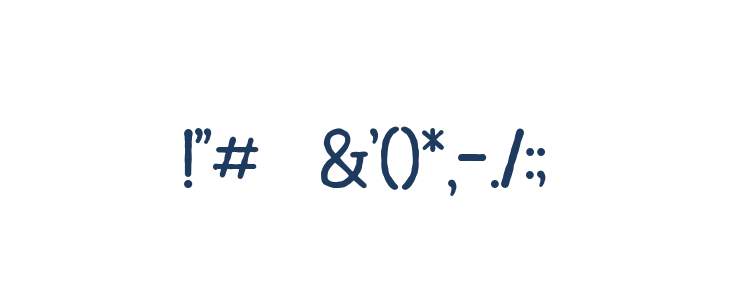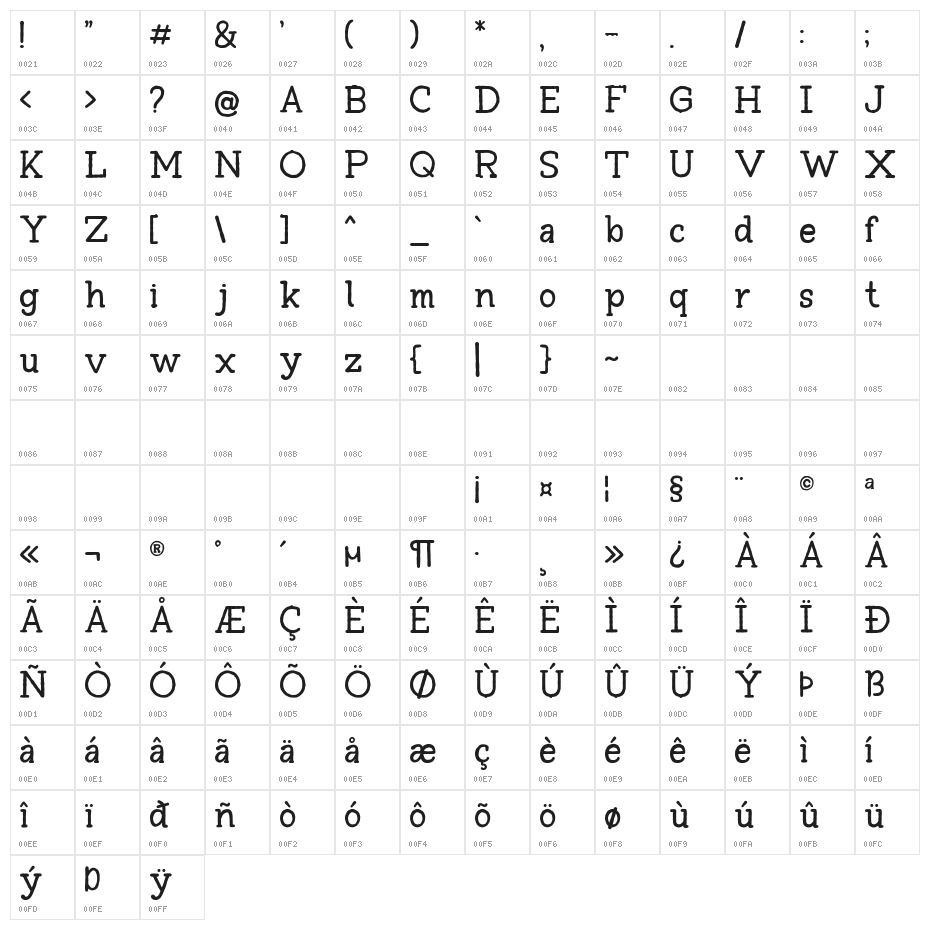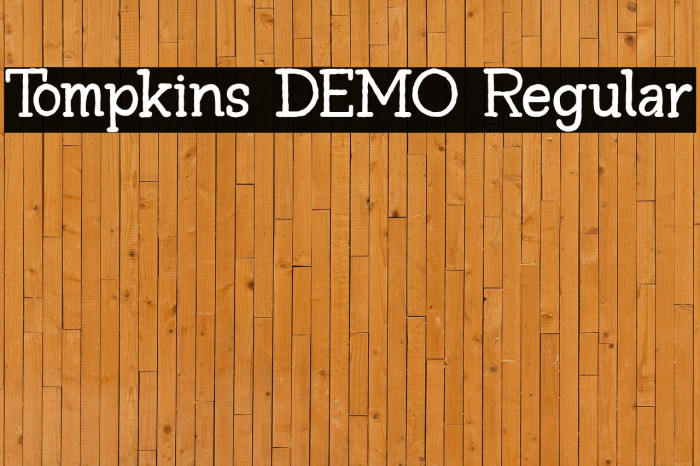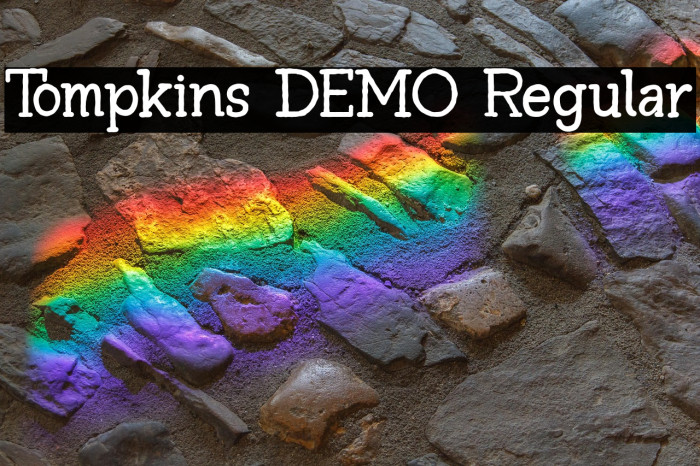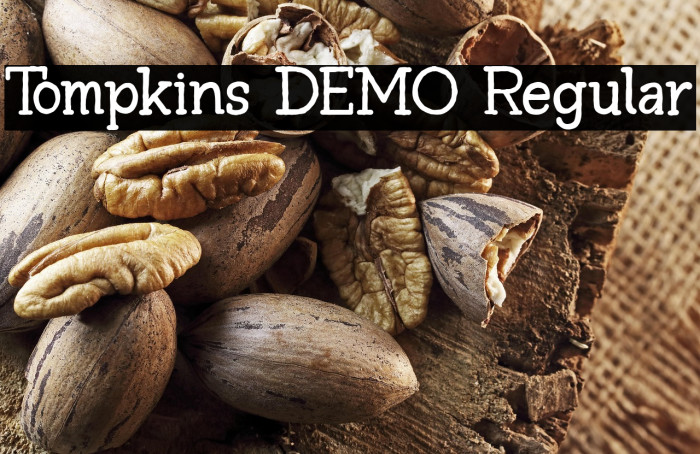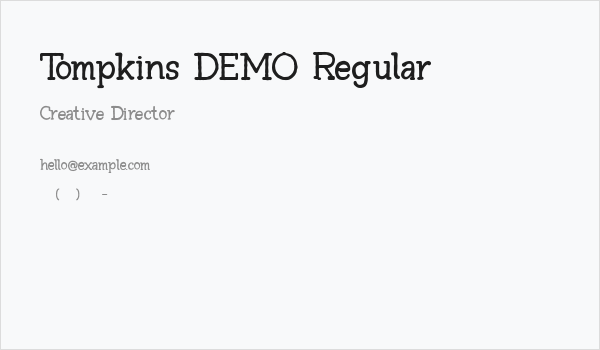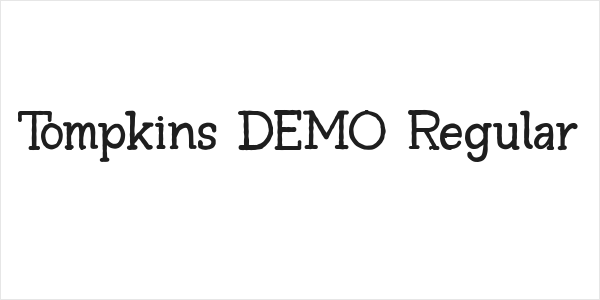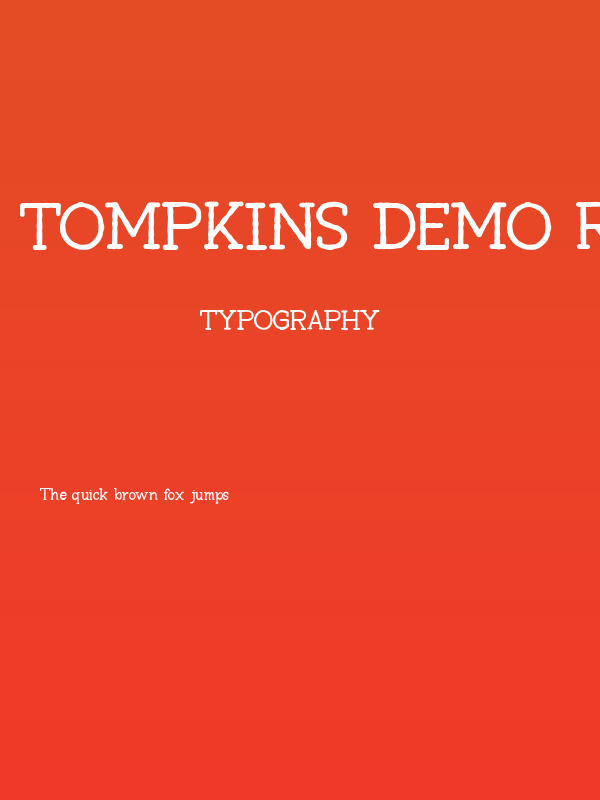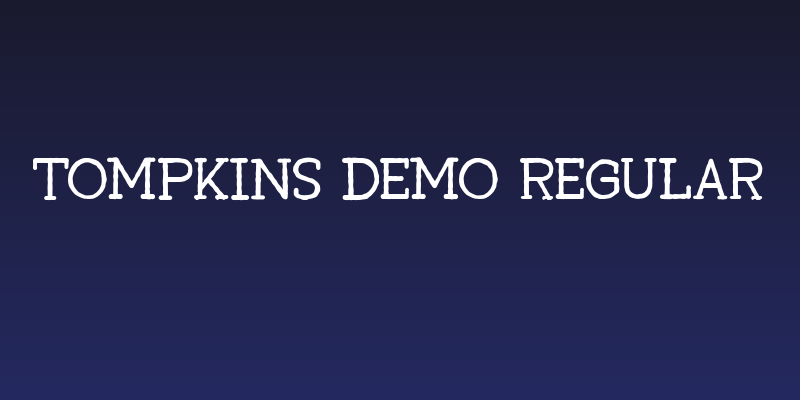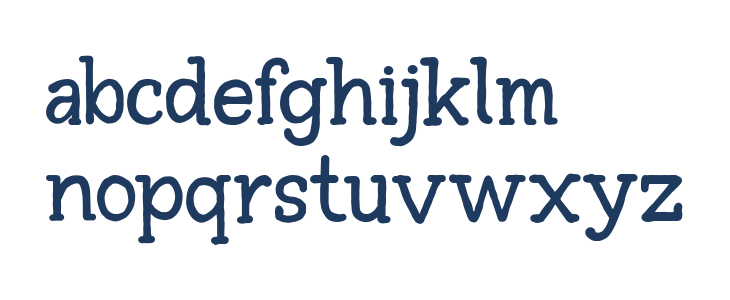
Tompkins DEMO Regular Font
Tompkins DEMO Regular Description
This font features a distinctive slab serif style with bold, rounded serifs that give it a strong and sturdy appearance. The characters are well-defined with a slightly condensed width, providing a compact yet readable text. The uppercase letters are uniform in height, while the lowercase letters have a consistent x-height, contributing to a balanced look. The numerals and special characters maintain the same boldness and clarity, ensuring legibility across various uses. The overall design is reminiscent of vintage typewriter fonts, offering a classic and timeless feel.
| Proposed Projects | Ideal for projects requiring a classic and robust look, such as book covers, posters, branding materials, and retro-themed designs. |